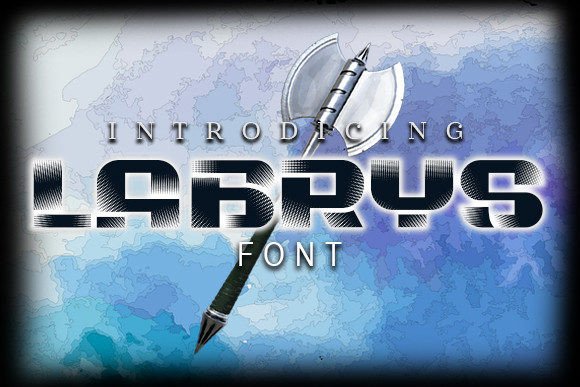
**Unleash Your Creativity with Labrys: The Ultimate Decorative Font**
Prepare to be captivated by Labrys, the extraordinary decorative font that will ignite your imagination and transform your designs into masterpieces. Crafted by the renowned vladimirnikolic, Labrys is an exquisite typeface that exudes style and sophistication.
Immerse yourself in a world of endless possibilities with Labrys. Its unparalleled versatility makes it the perfect choice for a myriad of projects, from captivating banners to eye-catching shirts and posters. Let your creativity soar as you witness how Labrys effortlessly elevates your designs to new heights.
Step into a realm of visual enchantment, where every letter dances with a touch of elegance and grandeur. With Labrys, your words will come alive, captivating your audience with their undeniable charm. Whether you're seeking to create bold statements or evoke a sense of timeless allure, Labrys has the power to amplify your message with flair.
Unlock the gateway to a world of typography that transcends the ordinary. Embrace Labrys, the decorative font that will ignite your passion for design and inspire you to create truly unforgettable works of art.